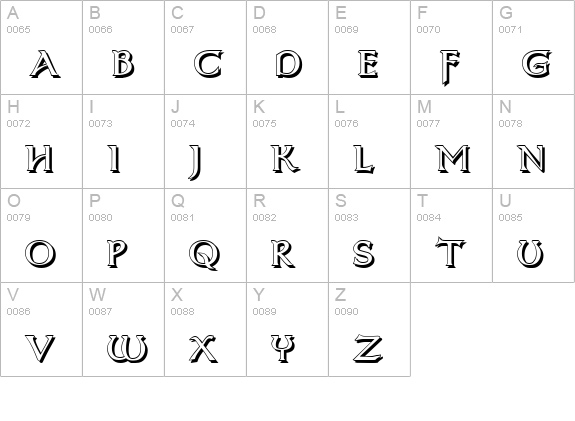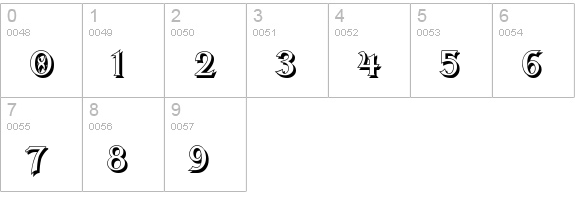
Dumbledor 3 Shadow font is a beautifully crafted typeface that exudes elegance and sophistication. This unique font features intricate shadow effects that add depth and dimension to your designs. The ornate details of this font make it perfect for creating eye-catching headers, titles, and logos. What sets Dumbledor 3 Shadow font apart is that it is available for free download at FontsMarket.com. This means you can easily access this stunning font and use it in your projects without any cost. Whether you're working on a personal or commercial project, Dumbledor 3 Shadow font is a versatile choice that will elevate your designs to the next level. Embrace the beauty and creativity of Dumbledor 3 Shadow font by downloading it for free today at FontsMarket.com. Let your imagination soar as you explore the endless possibilities this exquisite font has to offer.